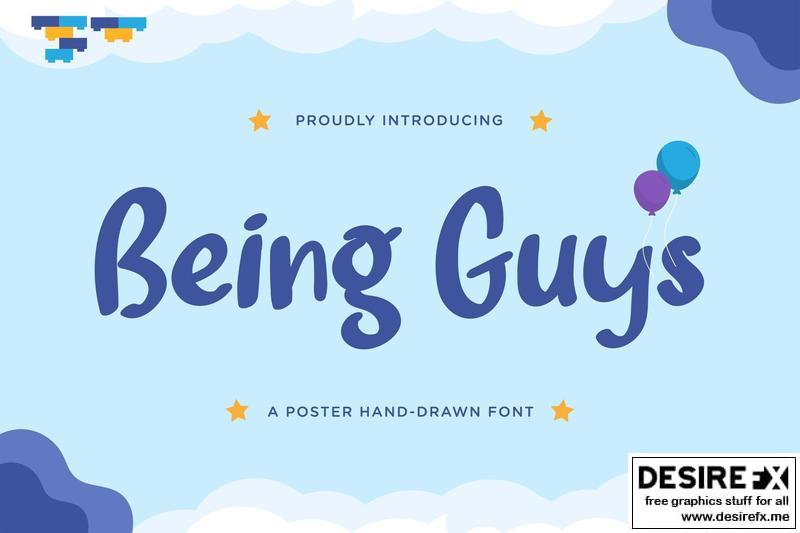
Being guys – Poster Font J73DJJJ
Being guys is a hand-drawn poster font.
The font looks cute and fun for kids-themed design.
Features:
– Uppercase
– Lowercase
– Symbols & Punctuation
– Numeral
– Ligature
– Alternate
– Multilingual Support